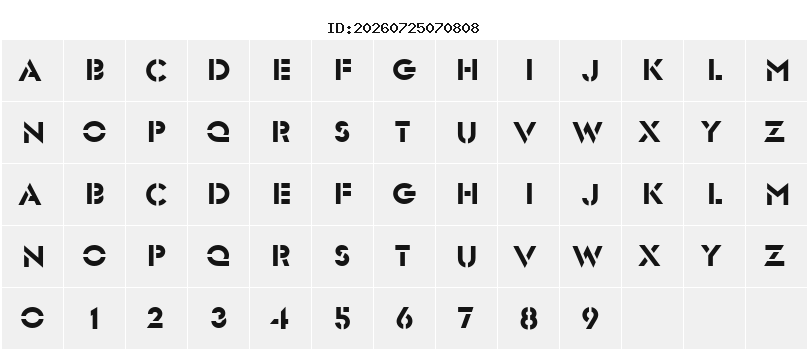
About Glaser Becker Stencil.ttf
Glaser Becker Stencil.ttf is a modern, elegant sans-serif font designed for ultimate readability and visual harmony. Perfect for branding, headlines, web design, and print materials.